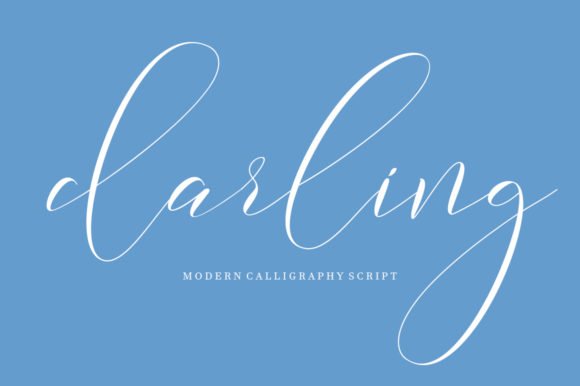
The Perfect Script: Unveiling the Elegance of Darling Font
Have you ever sat at your desk, surrounded by scraps of paper and endless ideas, searching for the perfect font to bring your design to life? For me, it’s moments like these that remind me why I love being a designer – the thrill of discovery, the joy of creation, and the satisfaction of seeing a project come together.
Enter Darling Font, the charming and elegant script that’s about to become your new best friend. With its stunning alternates, gorgeous glyphs, and smooth lines, this font is perfect for adding a handwritten touch to your designs. Whether you’re working on wedding invitations, thank you cards, or logos, Darling Font is the perfect choice for adding a touch of sophistication and elegance. As a designer, you’ll appreciate the PUA encoding that makes it easy to access all of the glyphs and swashes, giving you endless creative possibilities.
Darling Font Key Features
- Font Family: Darling Font is a unique, high-quality script font designed for various typography needs.
- Unique Characteristics: Features elegant, handwritten strokes and subtle flair, making it perfect for invitations, quotes, and other creative projects.
Darling Font Review
Overall, I think the Darling Font has a lot of potential, but it’s not without its flaws. Here’s what I like and don’t like about it.
- ✨ Unique and elegant feel: The Darling Font has a distinct, whimsical aesthetic that’s perfect for creative projects.
- ✨ Versatility: It can be used for a wide range of applications, from fashion and beauty to food and lifestyle.
- ✨ High-quality typography: The font is well-designed and looks great at various sizes and resolutions.
- ⚠️ Limited font sizes: The Darling Font starts to look a bit pixelated when scaled up or down, which can be a problem for certain designs.
- ⚠️ Limited language support: The font only supports Latin-based languages, which can be a limitation for global brands or companies.
- ⚠️ Some character inconsistencies: There are some minor inconsistencies in character design, which can be jarring for some users.
Overall, I think the Darling Font is a solid choice for designers who want a unique, elegant look. However, it may not be the best option for large-scale or complex projects.